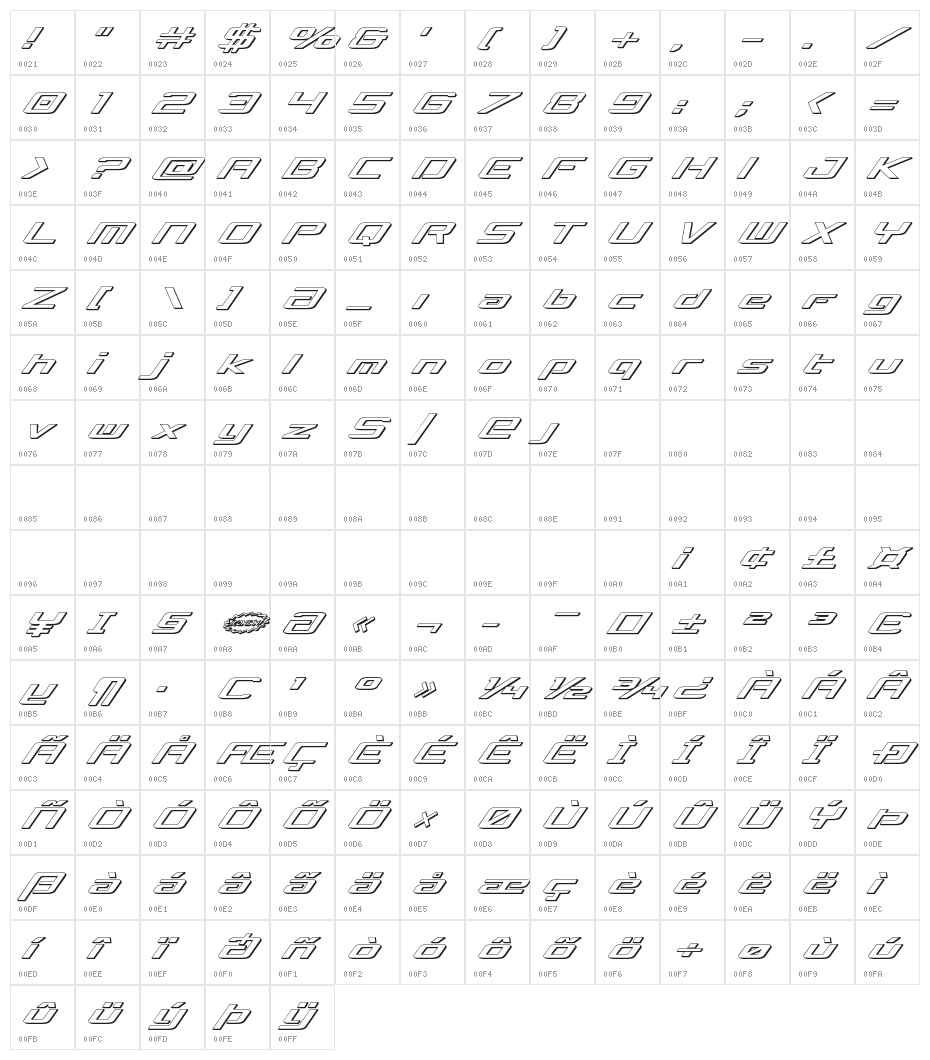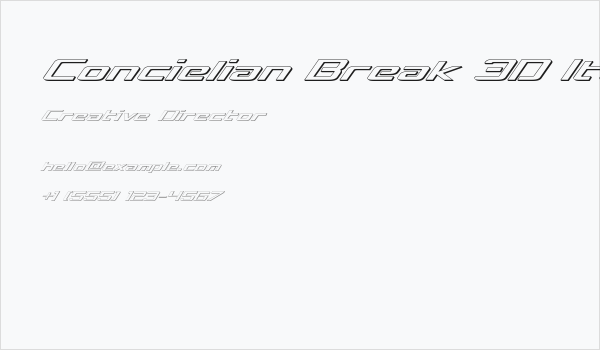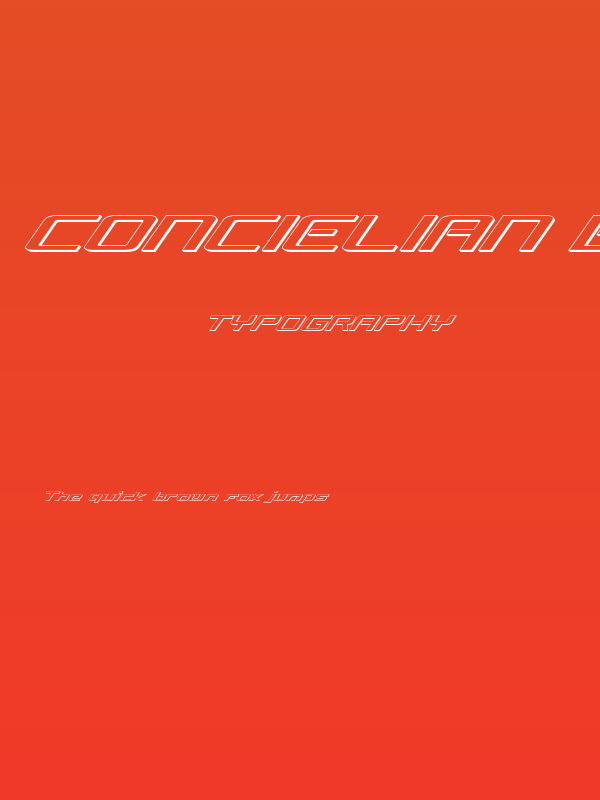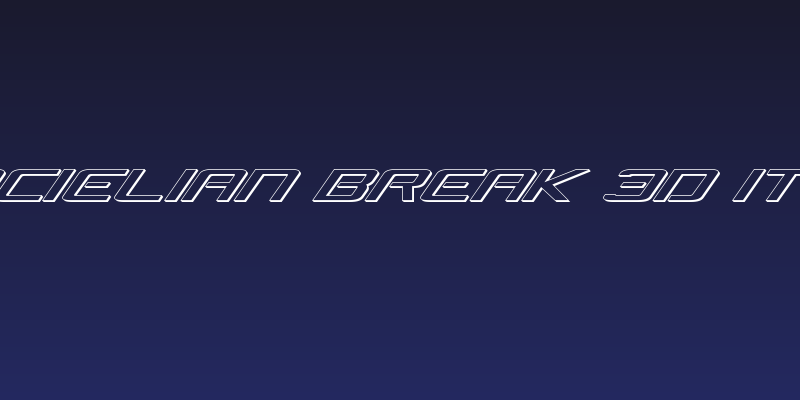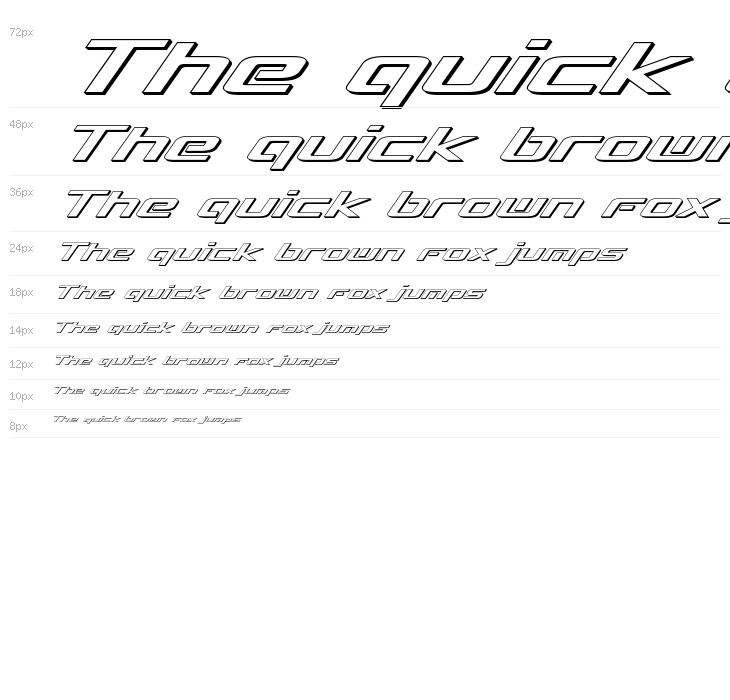
Concielian Break 3D Italic Font
Concielian Break 3D Italic Description
This font features a unique 3D outline style that gives each character a sense of depth and dimension. The letters are italicized, adding a dynamic and forward-leaning appearance. The geometric shapes and clean lines create a modern and futuristic look, making it ideal for projects that require a bold and innovative touch. The uppercase and lowercase letters maintain a consistent style, while the numbers and special characters are designed to complement the overall aesthetic. The font's structure is both eye-catching and readable, making it suitable for various creative applications.
| Proposed Projects | Ideal for futuristic designs, tech branding, video game titles, and innovative advertising campaigns. |